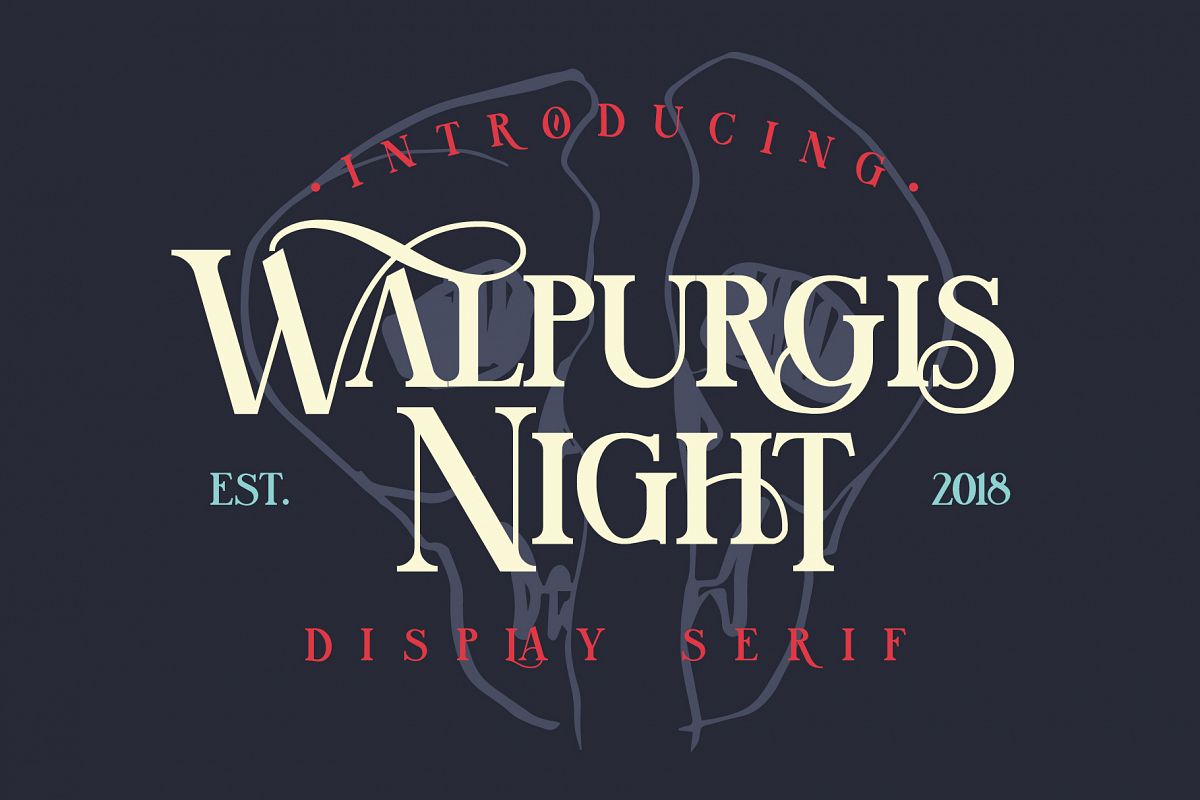
Walpurgis Night
Walpurgis Night is an elegant majuscule vintage serif font inspired by classic antique fonts.
It perfectly represents modern and vintage esthetics. The font includes special uppercase letters,
many alternate characters and beautiful ligatures.
The font is perfect for wedding elegant invitation cards, beauty and fashion package design,
very suitable for books design, magazines typography, packaging, branding and more other creative project